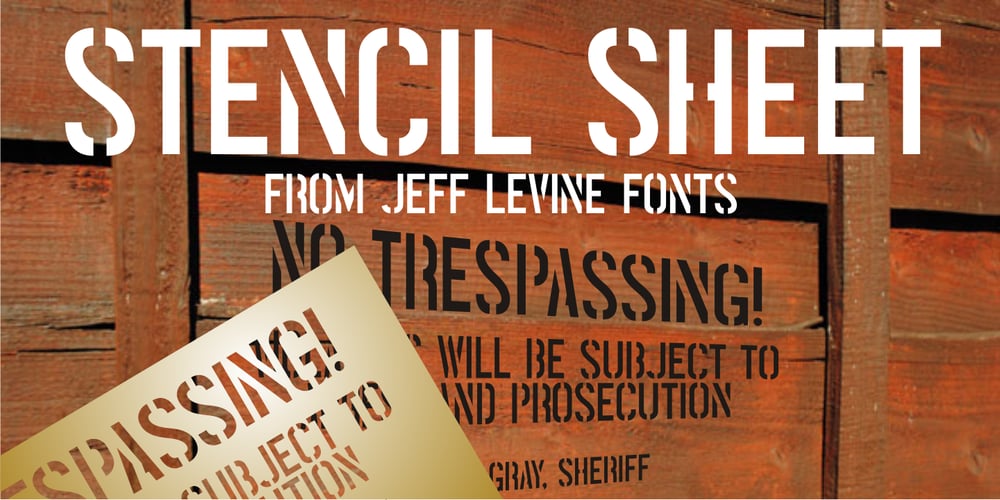
Stencil Sheet JNL
Stencil Sheet JNL font
Stencil Sheet JNL Font Family was designed by Jeff Levine and published by Jeff Levine. Stencil Sheet JNL contains 1 styles and family package options. Stencil Sheet JNL was modeled from an antique brass stencil sign that was custom hand punched for the customer. Sets of punch dies were available for years that allowed rubber stamp shops and similar trades to make custom stencils out of sheets of zinc or brass.